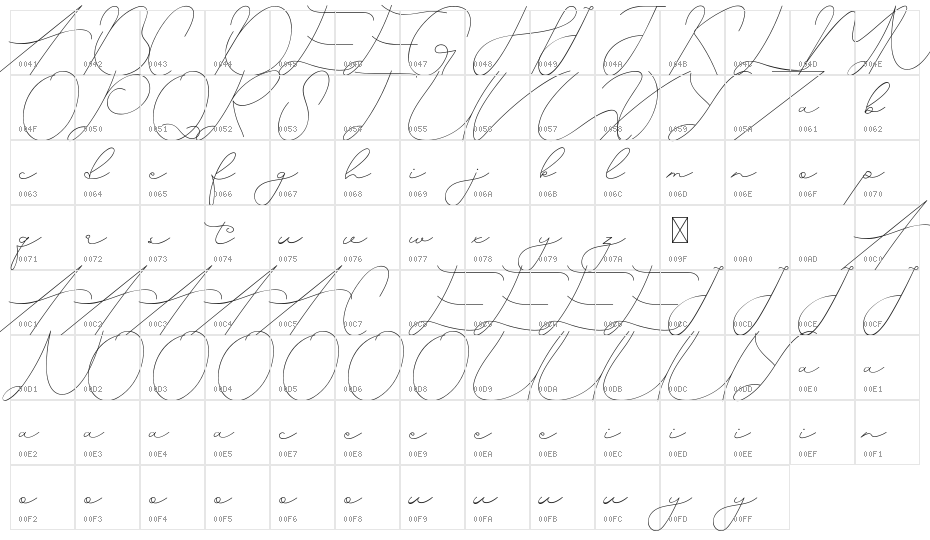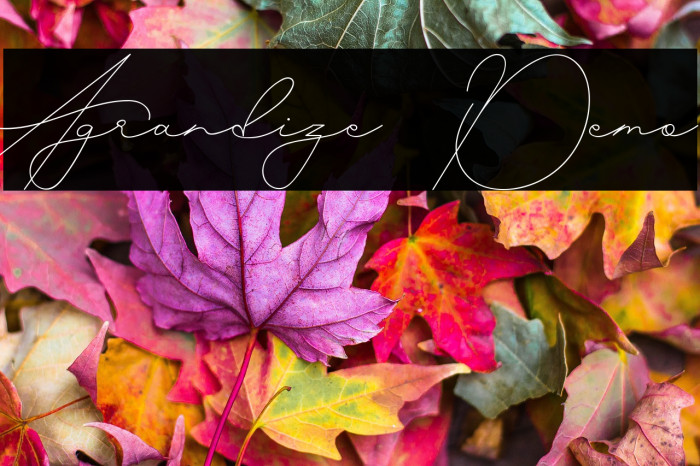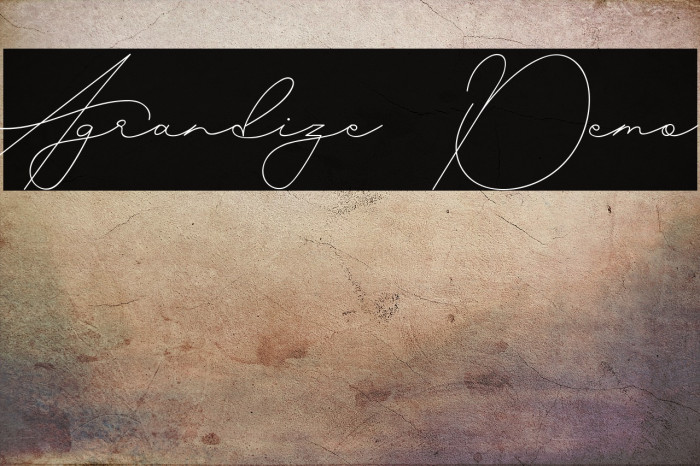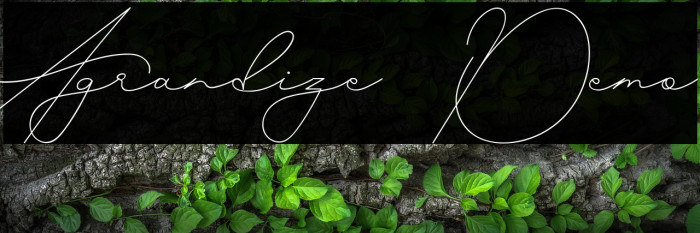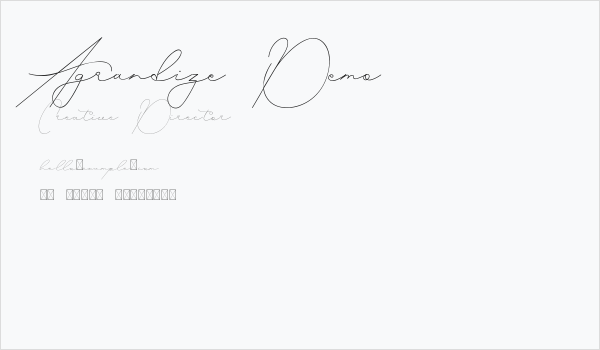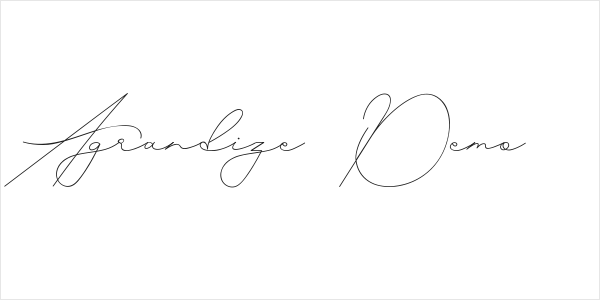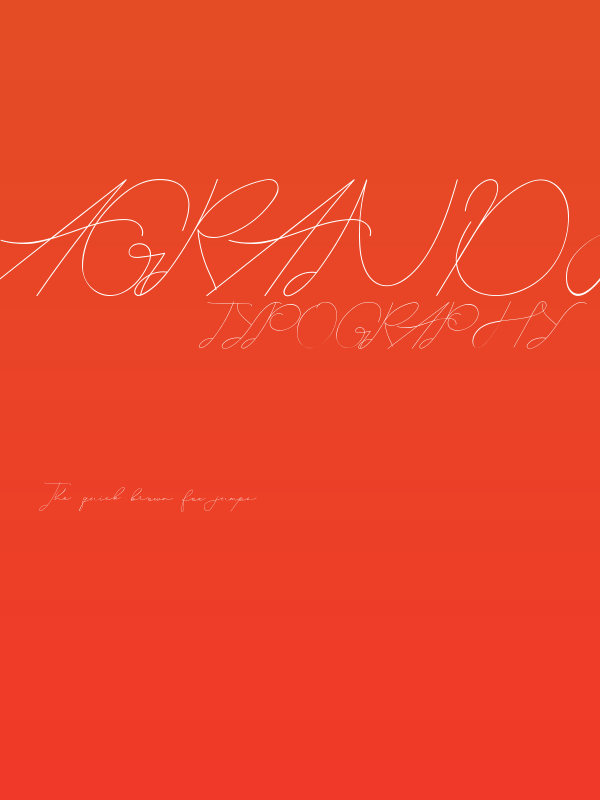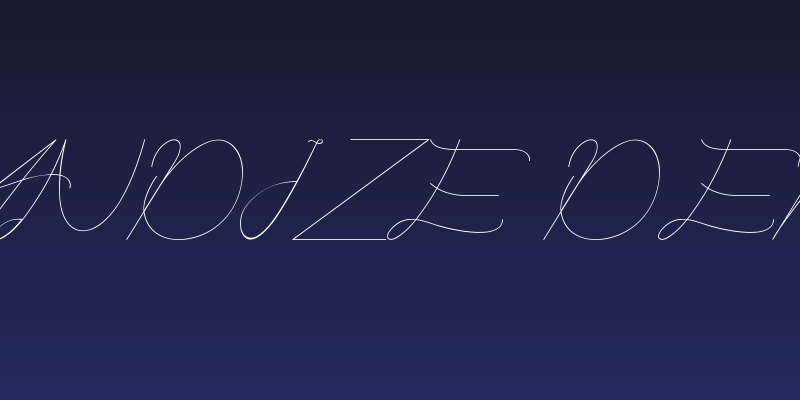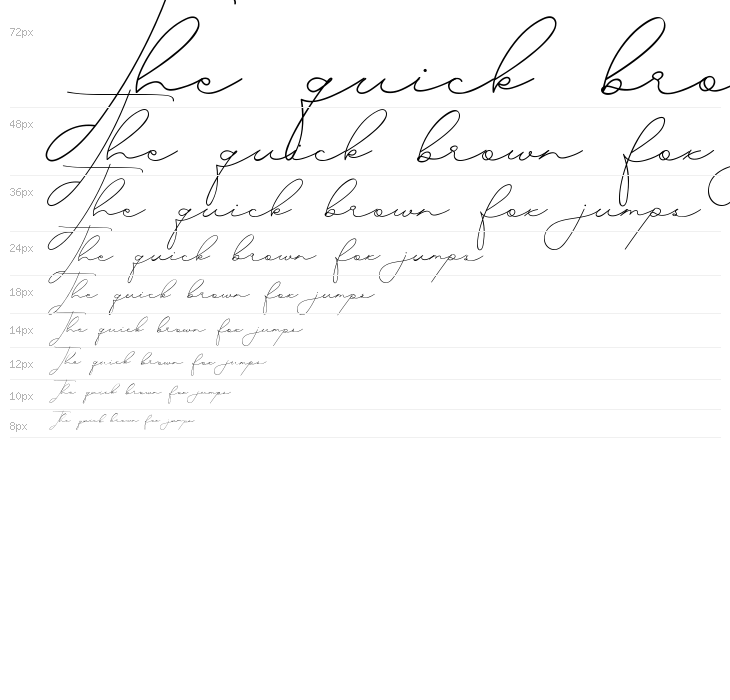
Agrandize Demo Font
Agrandize Demo Description
Elegant, flowing script font with thin, continuous strokes and a handwritten appearance. The characters are connected, featuring high ascenders and long descenders, with a delicate and airy feel.
| Overall Style | Elegant, Decorative, Handwritten |
| Use Case | Logos, Invitations, Decorative Headlines |
| Proposed Projects | Wedding invitations, personal branding, elegant logos, greeting cards, upscale packaging. |